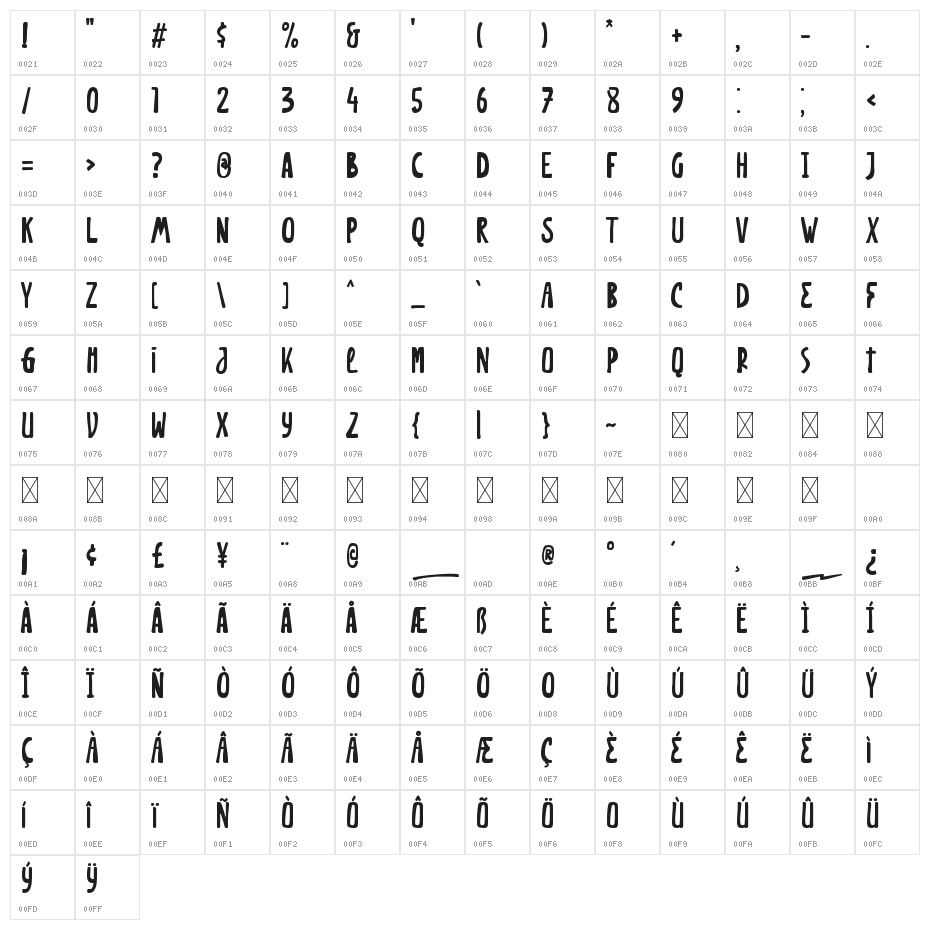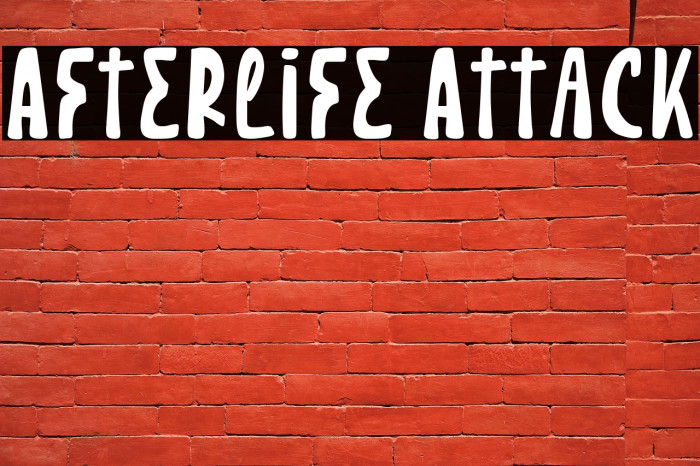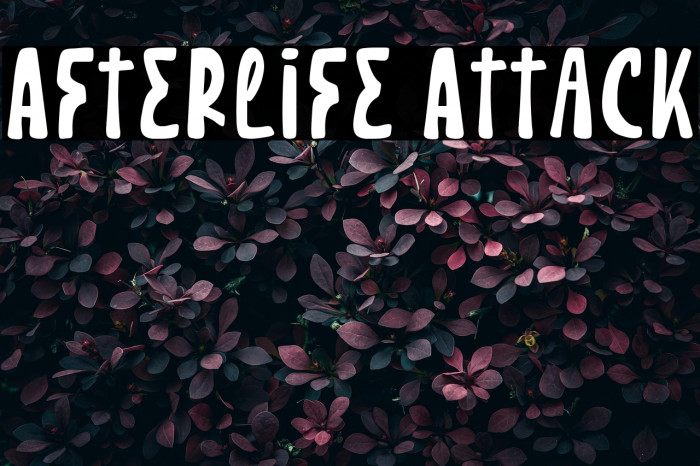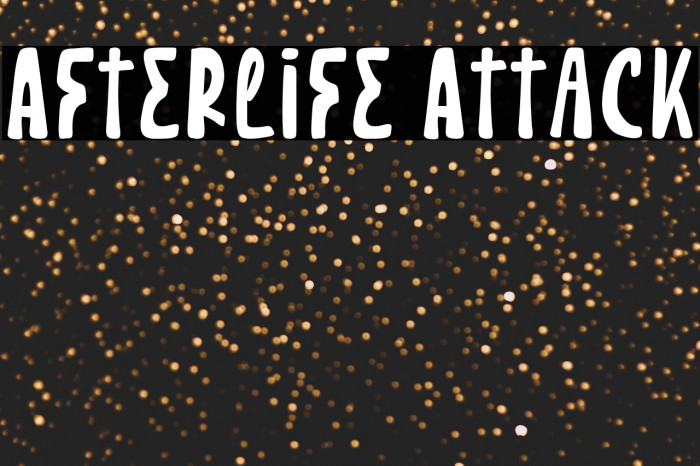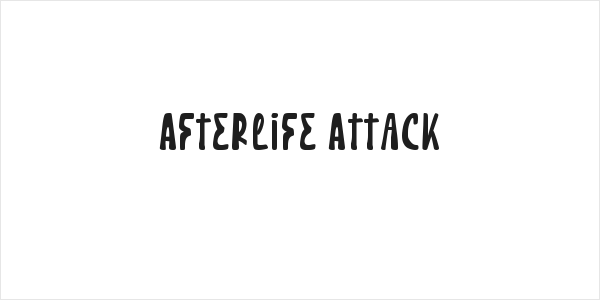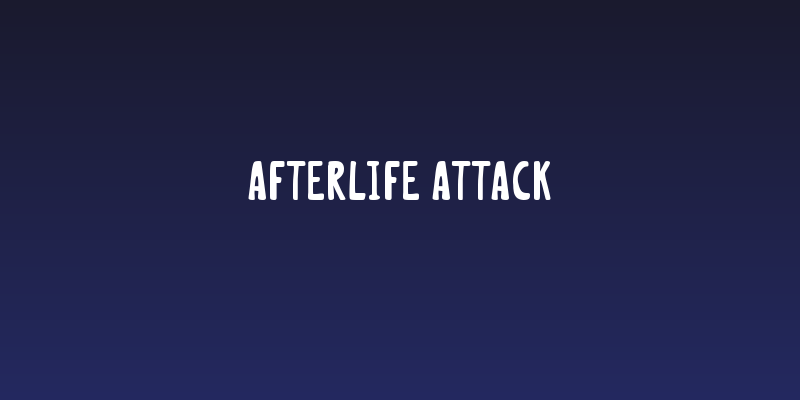
Afterlife Attack Font
Afterlife Attack Description
This font features a playful and bold style with a hand-drawn appearance. The characters are slightly irregular, giving it a whimsical and casual feel. The uppercase and lowercase letters maintain a consistent thickness, contributing to its bold presence. The numbers and special characters follow the same playful design, making the font versatile for various creative projects. Its unique style is perfect for adding a touch of personality and fun to any design. The font's overall appearance is both approachable and eye-catching, making it suitable for a variety of uses.
Proposed ProjectsIdeal for children's books, playful branding, greeting cards, and creative posters.